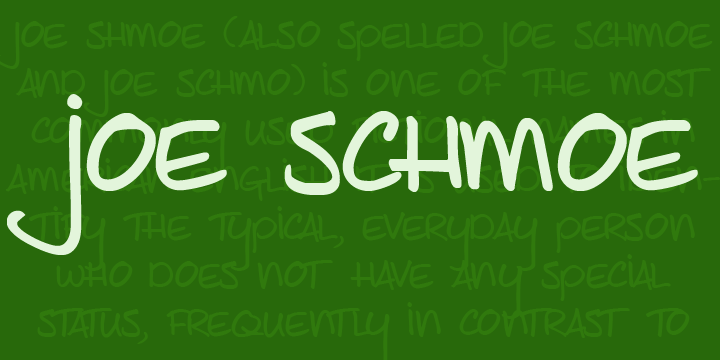
Joe Schmoe Font is ideal for everyday business signage, approachable small business branding, friendly neighborhood establishments, casual restaurant menus, down-to-earth marketing materials, regular guy service providers, unpretentious shop graphics, community bulletin boards, blue-collar business cards, and any relatable project that celebrates the honest simplicity and genuine authenticity of ordinary people doing extraordinary work in their communities.
What makes Joe Schmoe Font exciting is its everyman appeal that captures the genuine warmth of regular folks who work hard, treat people fairly, and build their reputations one satisfied customer at a time. This typeface embodies the essence of honest business with approachable letterforms that suggest handshakes over contracts, word-of-mouth recommendations, and the reliable service that comes from people who take pride in doing things right. The font's down-to-earth character makes it perfect for brands and projects that want to communicate trustworthiness, accessibility, and the irreplaceable value of authentic, no-nonsense service.
The Joe Schmoe Font family includes multiple weights and friendly variations, featuring light, regular, and bold versions along with casual alternates and approachable elements that enhance the font's everyman appeal. This comprehensive collection allows designers to create authentically approachable typography that maintains the font's signature friendly character while providing flexibility for various small business and community-focused design applications.
When exploring authentic everyman typography, Joe Schmoe Font Free Download represents an exceptional opportunity to work with a typeface that genuinely captures the spirit of regular people and honest business practices. This font demonstrates innovative design thinking by incorporating the unpretentious reliability and genuine warmth that define both traditional neighborhood businesses and the contemporary appreciation for authentic, down-to-earth service providers.
Professional designers appreciate Joe Schmoe Font for its ability to instantly communicate trustworthiness and approachable authenticity across various local business and service platforms. The font's regular-guy character makes it particularly effective for small businesses, service providers, and community organizations seeking to establish genuine connections with customers who value honest work and straightforward communication over flashy marketing.
The enduring appeal of Joe Schmoe Font lies in its perfect representation of honest work and community values that continues to be the foundation of successful local businesses and trusted service providers. This typeface serves as a celebration of the ordinary people who form the backbone of communities through their dedication to quality work and genuine customer care.
For creative professionals working with small business and community service brands, Joe Schmoe Font represents the ultimate typography solution that brings authentic everyman appeal and honest business character to any application, ensuring designs reflect the genuine trustworthiness and down-to-earth reliability that define the most beloved local businesses and service providers.